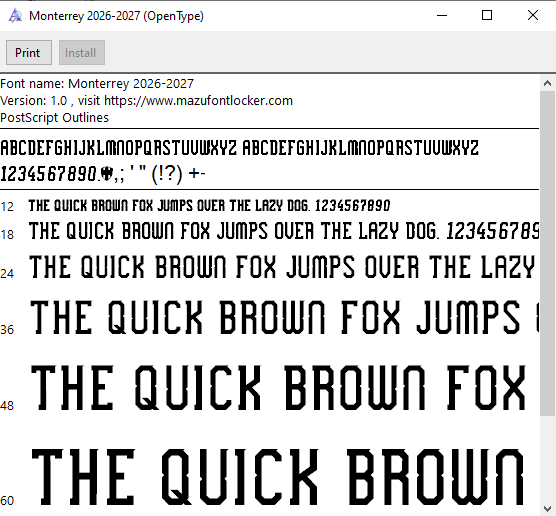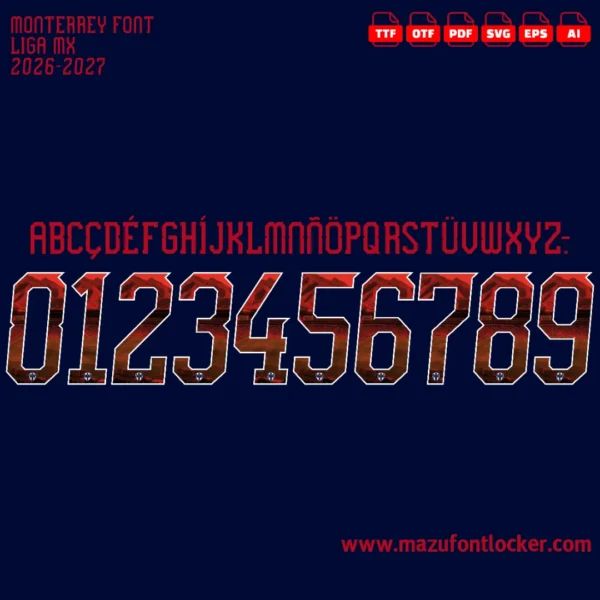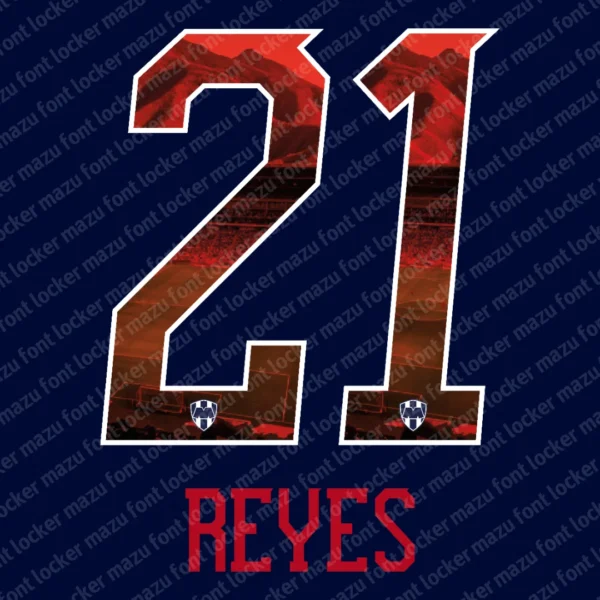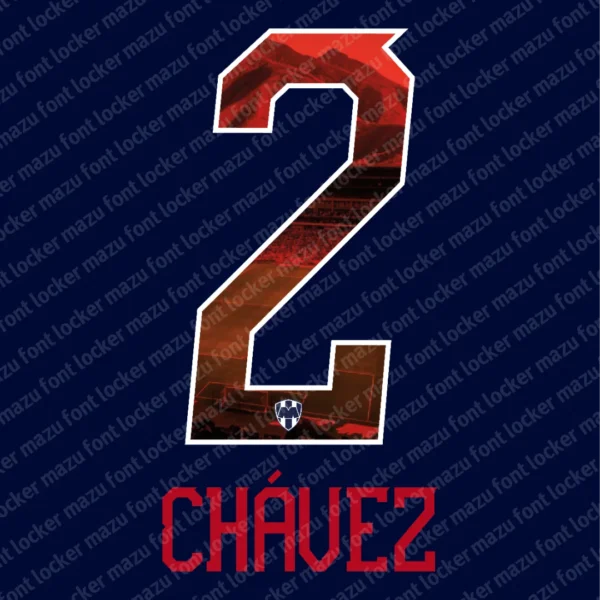
CF Monterrey 2026-2027 Font Vector – Legendary Blue & White Typeface
The CF Monterrey 2026-2027 Font Vector is a premium typeface that accurately recreates the official match lettering worn by CF Monterrey during the 2026-2027 season. This high-quality vector font kit captures the bold, dynamic, and instantly recognizable typography that perfectly complements the club’s iconic blue and white striped identity.
Designed for professional designers, football enthusiasts, and passionate Rayados supporters, the CF Monterrey 2026-2027 Font Vector delivers exceptional authenticity for creating realistic jersey mockups, football merchandise, social media graphics, match posters, and custom fan artwork. Every character has been carefully recreated to match the modern and powerful visual style of one of Mexico’s biggest and most successful football clubs.
Why Choose CF Monterrey 2026-2027 Font Vector
This font stands out thanks to its precise vector construction and authentic club styling. Every letter and numeral has been meticulously recreated to match the official shirt lettering used throughout the 2026-2027 Liga MX season. Whether you’re producing professional kit templates or creating eye-catching football content, the CF Monterrey 2026-2027 Font Vector delivers a genuine match-ready appearance.
The lettering featured in the CF Monterrey 2026-2027 Font Vector combines clean geometric lines with powerful modern proportions. The result is a premium and highly readable typeface that reflects CF Monterrey’s winning mentality, rich history, and passionate fanbase.
• Complete uppercase A–Z alphabet and numbers 0–9 in authentic CF Monterrey 2026-2027 style
• Special CF Monterrey badge glyph – Press the “:” (Colon) key to insert the club badge
• Includes authentic Liga MX badge glyph placement beneath player numbers